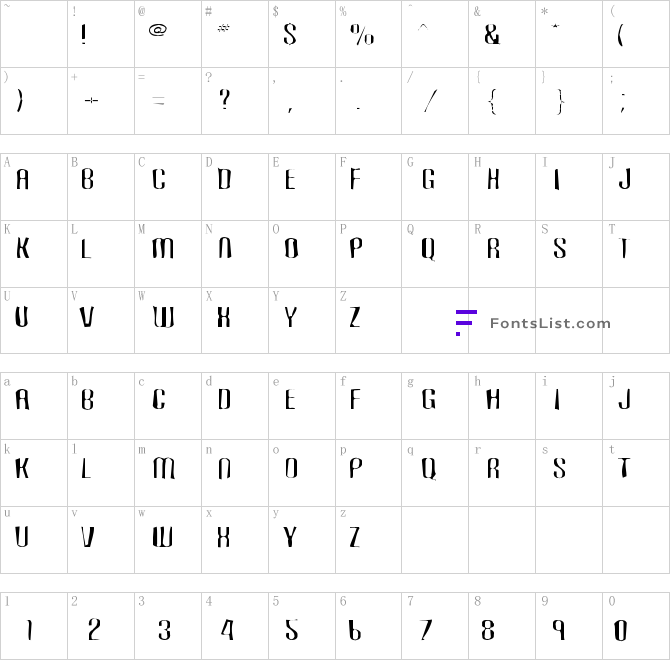
- Font Name:Carbon Block Gaunt
Carbon-Block-Gaunt.ttf is a very beautiful artistic font, Carbon-Block-Gaunt.ttf is widely used in the design and printing of various books and pictures,Carbon-Block-Gaunt.ttf has a strong visual impact,Carbon-Block-Gaunt.ttf is a commonly used font in newspapers, magazines and books, and is used in posters, e-commerce Poster design, store design, logo design, font design and other fields.Carbon-Block-Gaunt.